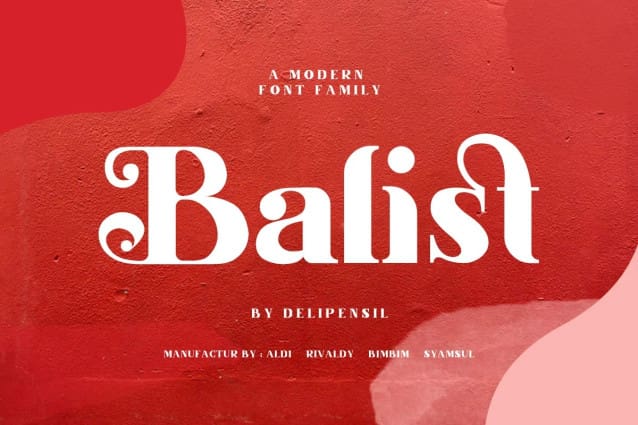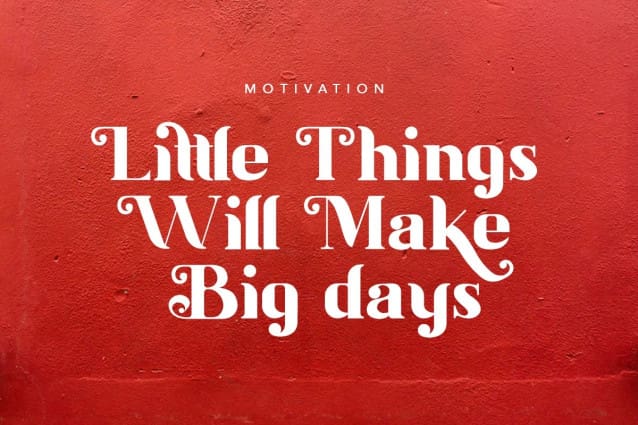
Balist Font
Balist Font – Modern Serif Font. Red inside, this our new look, beauty clean and mindful , it combine in one font, use this font for anything beauty place for your logo, headline, cover book, magazine and many more